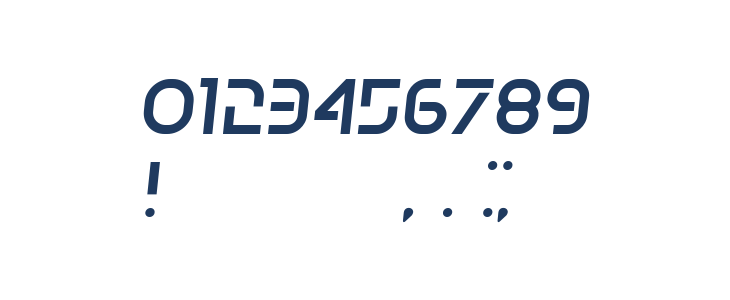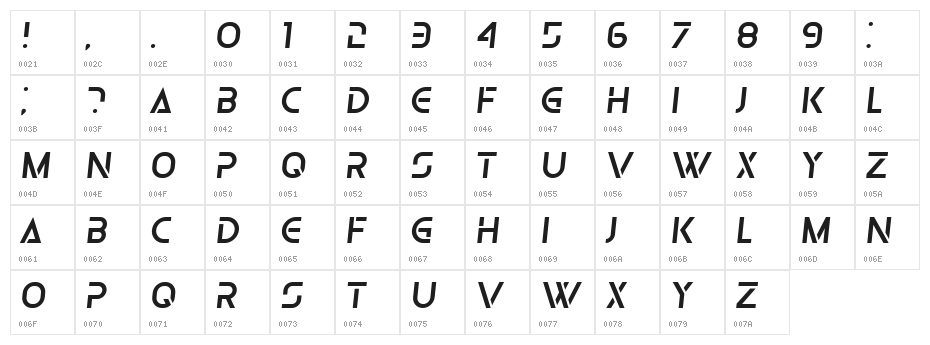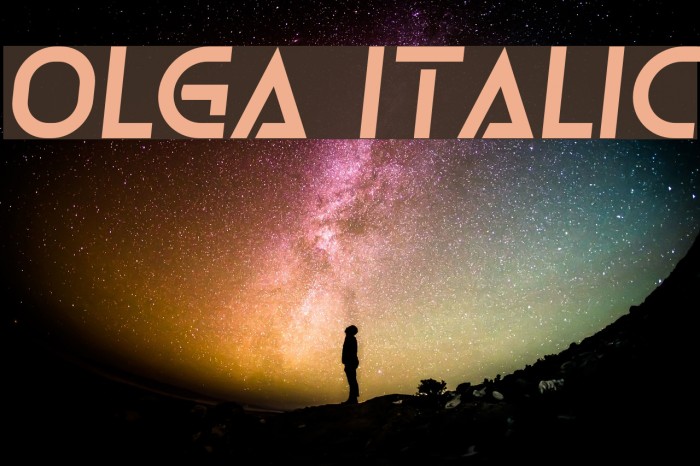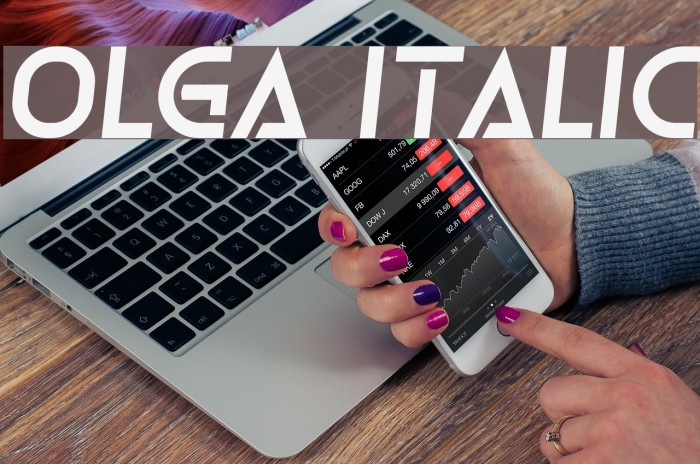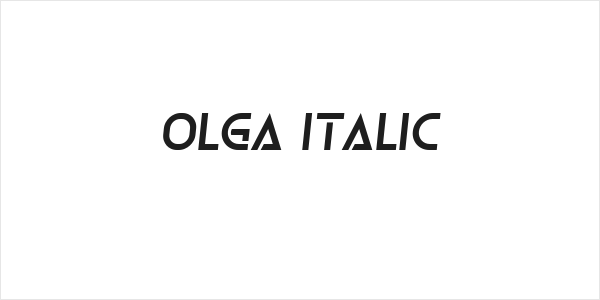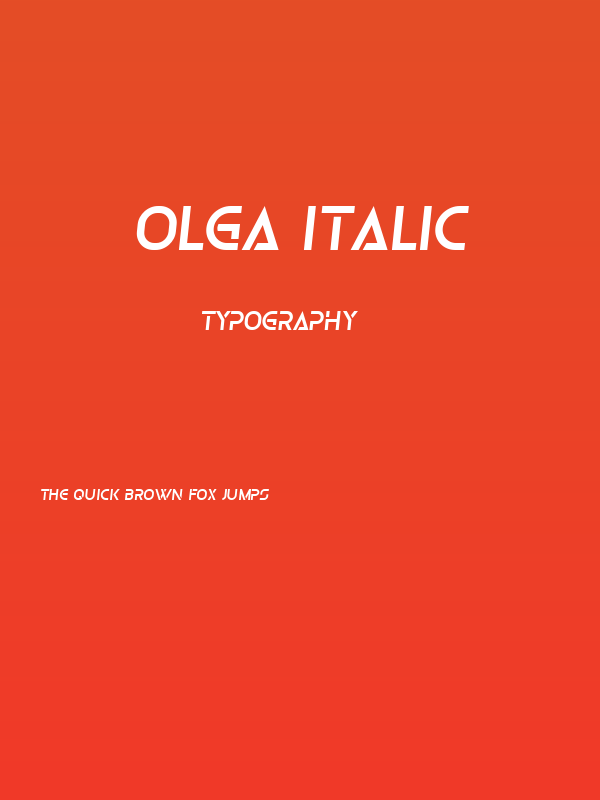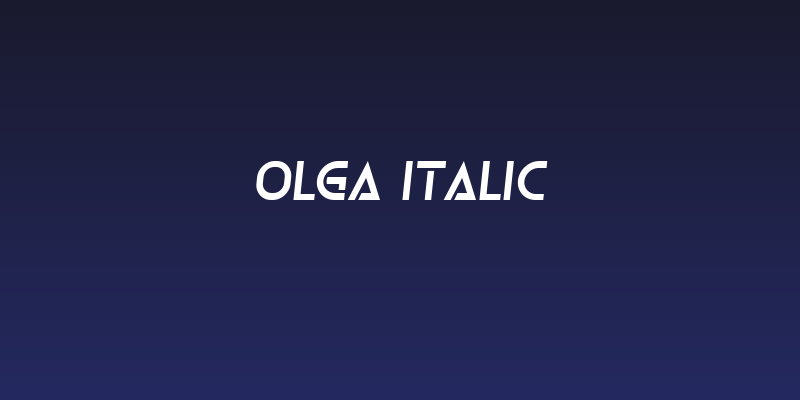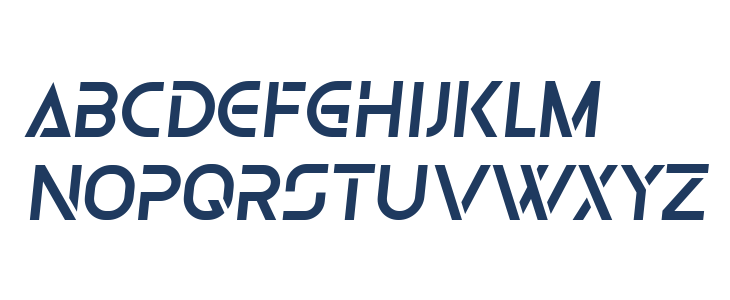
Olga Italic Font
Olga Italic Description
This font features a sleek, modern design with a distinct italic slant, giving it a dynamic and forward-moving appearance. The characters are bold and geometric, with sharp angles and clean lines that convey a sense of precision and efficiency. The uppercase letters are uniform in height, creating a cohesive and balanced look. The numerals are equally bold, maintaining the font's strong presence. The special characters are designed to match the overall style, ensuring consistency across all elements. This font is ideal for projects that require a contemporary and assertive aesthetic.
| Proposed Projects | Ideal for branding, advertising, and editorial design where a modern and assertive look is desired. |